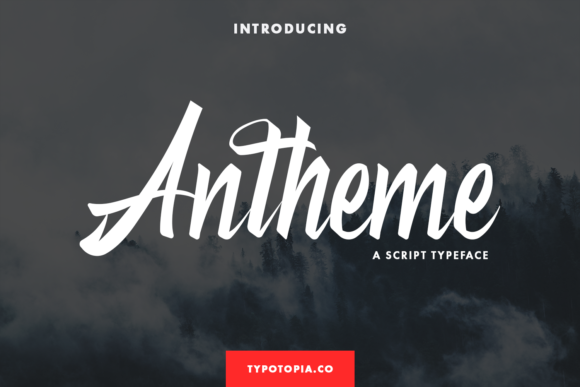
The Perfect Brushstroke: Unveiling the Antheme Font
As a designer, have you ever found yourself searching for that elusive, handwritten touch to elevate a project from ordinary to extraordinary? It’s that magical moment when the perfect font is discovered, and all the pieces fall into place.
Enter the Antheme Font, a charming and elegant script designed to add a personal, whimsical feel to any design. Whether it’s a wedding invitation, a heartfelt thank you card, or a company logo, Antheme Font brings a touch of sophistication and warmth to every project. For designers, this versatile font is a valuable asset, offering endless possibilities for creative expression and style.
With its beautiful brushstrokes and elegant flair, the Antheme Font is a must-have for any designer looking to add a handwritten touch to their work. In this article, we’ll delve into the world of Antheme Font, exploring its features, uses, and why it’s a favorite among designers.
Antheme Font Key Features
- Unique Characteristic: Antheme Font features a unique blend of modern and classic design elements, creating a distinctive aesthetic that sets it apart from other fonts.
Antheme Font Review
Antheme Font is a beautiful, elegant typeface that I’ve had the pleasure of working with. Here are my honest thoughts:
- Unique character: Antheme Font has a distinct, whimsical feel that sets it apart from more traditional serif fonts.
- Elegant flair: The subtle flair at the end of each letter adds a touch of sophistication and makes it perfect for high-end branding.
- Good legibility: Despite its ornate features, Antheme Font remains easy to read, even at smaller font sizes.
- Not ideal for body text: While Antheme Font is stunning in headings and titles, it may not be the best choice for large blocks of body text due to its ornate nature.
- Limited language support: As a decorative font, Antheme Font may not support as many languages as more utilitarian typefaces.
Antheme Font is a lovely, high-end typeface that’s perfect for projects that require a touch of elegance and sophistication. While it may not be suitable for every use case, it’s an excellent choice for branding, invitations, and other high-end applications where a unique, eye-catching font is desired.
Antheme Font is ideal for:
- Brand logos and typography
- Special occasion graphics and designs
Tips for Getting the Most Out of Antheme Font
For the best results, use Antheme Font in combination with elegant graphics and subtle colors. Experiment with different font sizes and styles to create a unique and eye-catching design.